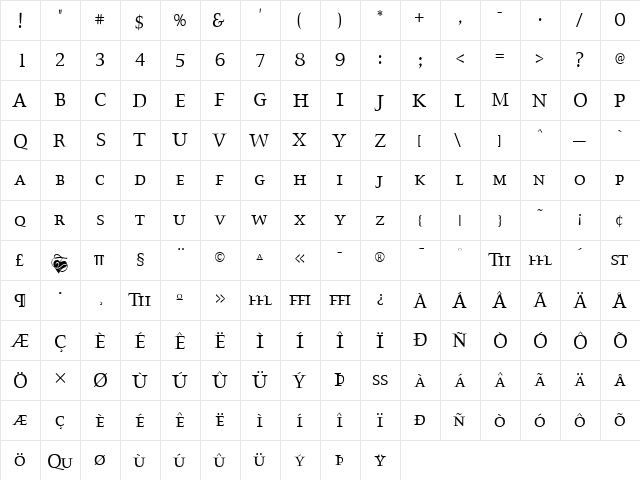
AIProsperaII Regular
Design Context for AIProsperaII Typeface
AIProsperaII offers clean, dependable letterforms without strong stylistic allegiance, making it a practical choice for designers who need flexibility.